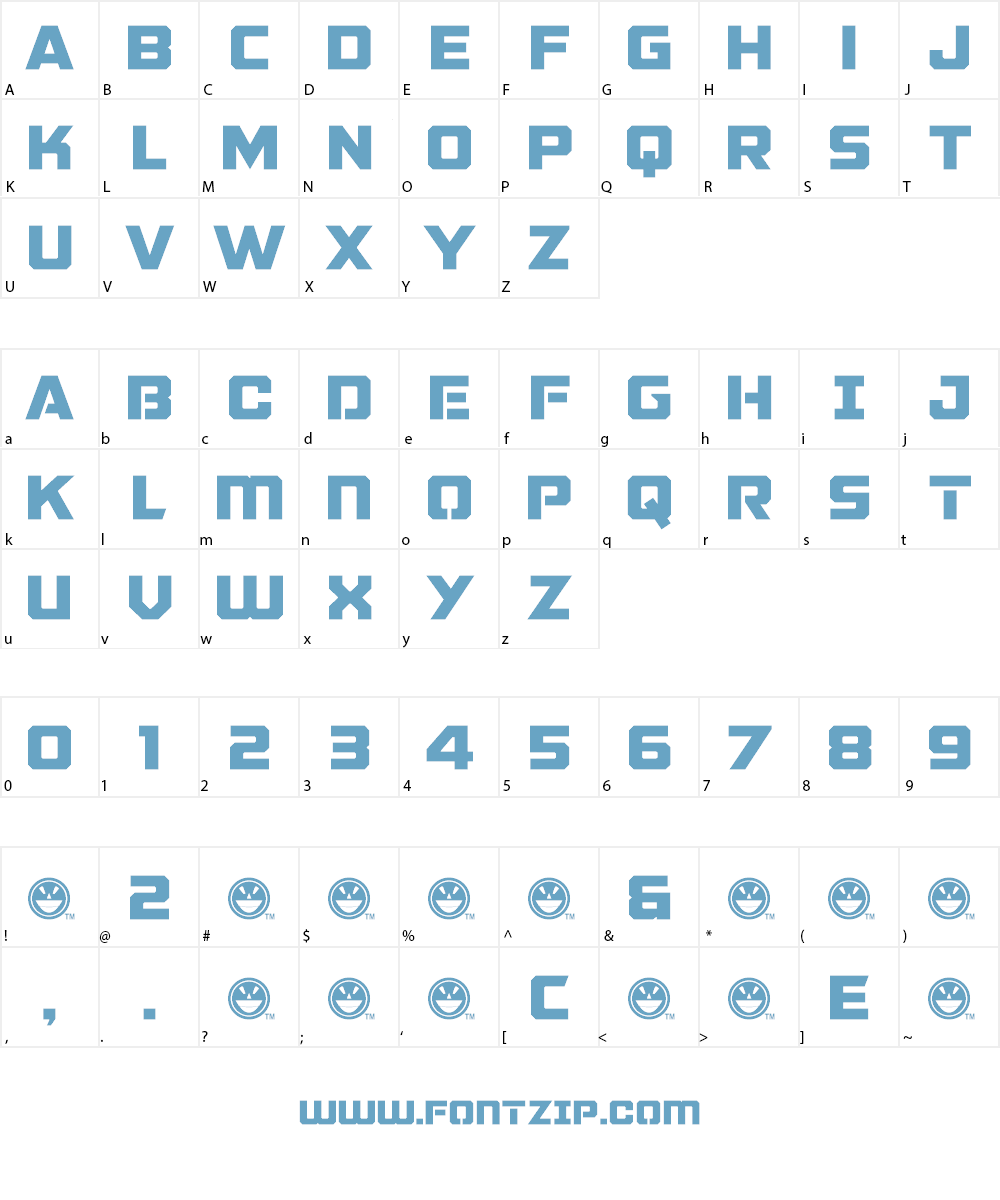
The celluloid has been minted -- digitally of course -- flora and fauna are speaking and even walking. The universe is a wide-open space, a collection of mysterious galaxies and celestial things capable of destroying entire worlds. Enter the latest Fontry offering to add its weight to an ongoing typographical battle that will span the stars, GALACTIC VANGUARDIAN NCV (non-commercial version).